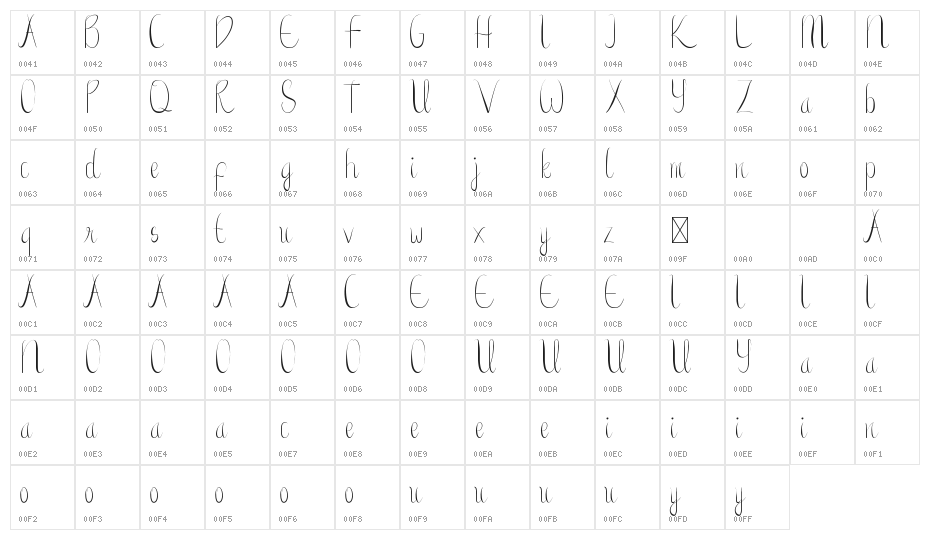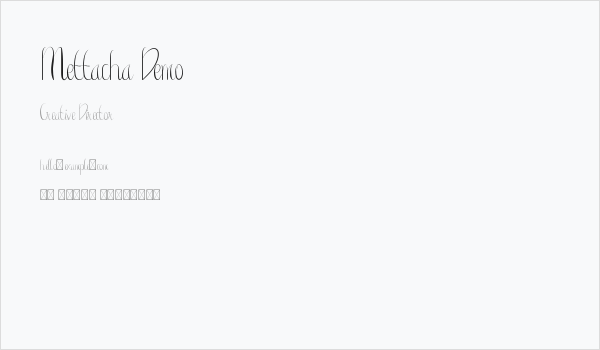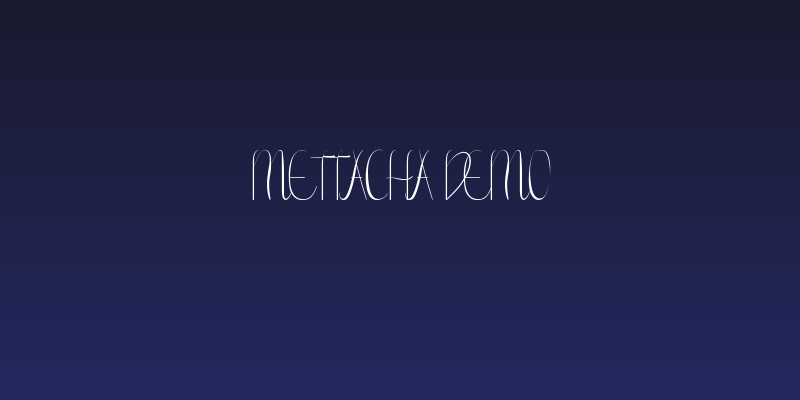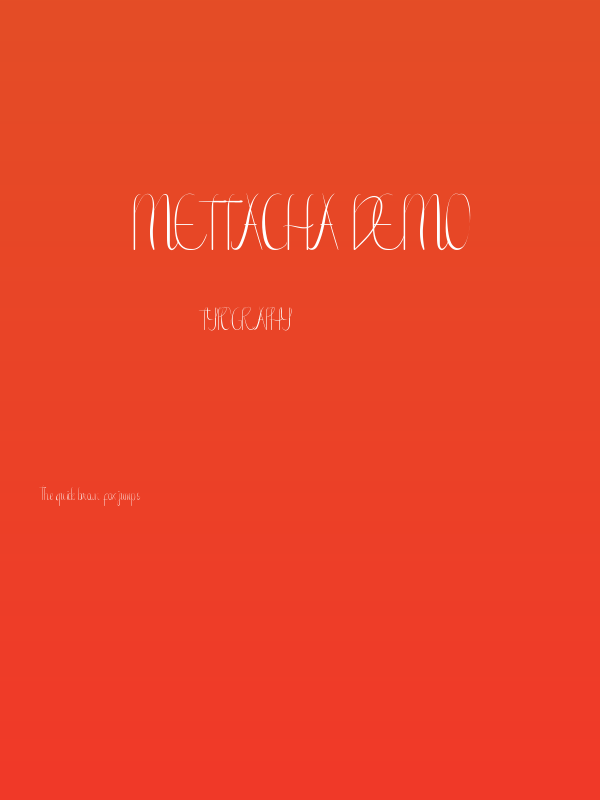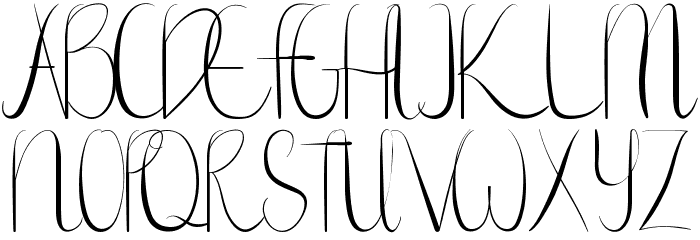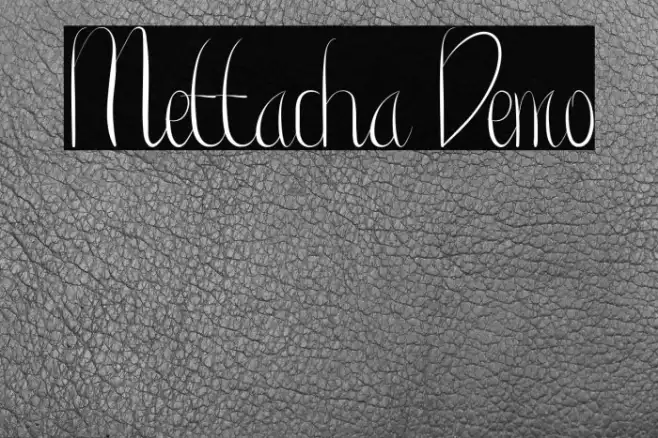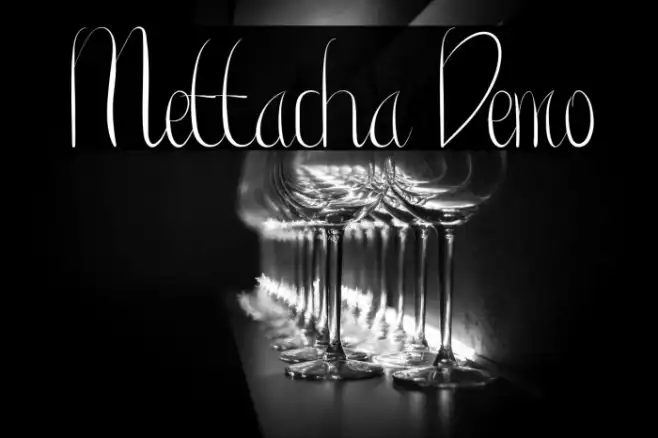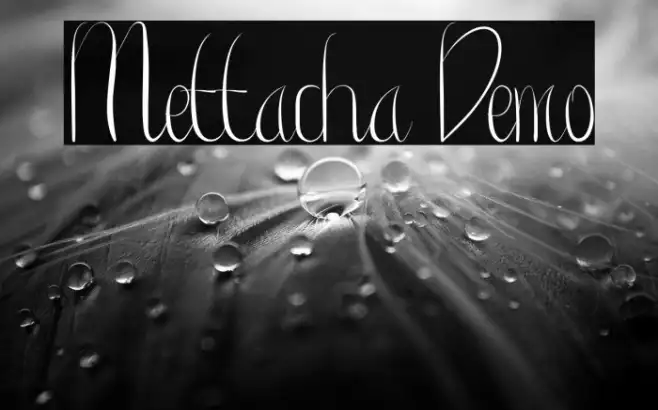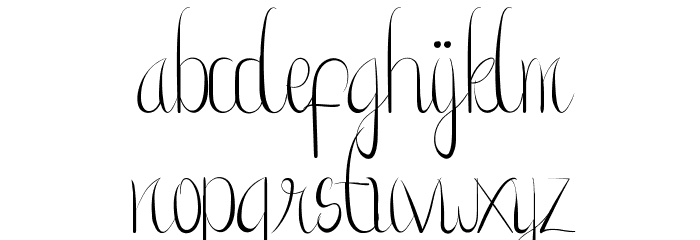
Mettacha Demo Font
Mettacha Demo Description
This font features a unique and elegant script style with elongated, flowing lines that give it a sophisticated and artistic appearance. The characters are thin and delicate, with a high contrast between thick and thin strokes, creating a sense of movement and fluidity. The uppercase letters are particularly tall and narrow, while the lowercase letters maintain a consistent height, adding to the font's graceful aesthetic. The overall design is modern yet timeless, making it suitable for a variety of creative applications.
| Proposed Projects | Ideal for wedding invitations, elegant branding, artistic posters, and fashion magazines. |